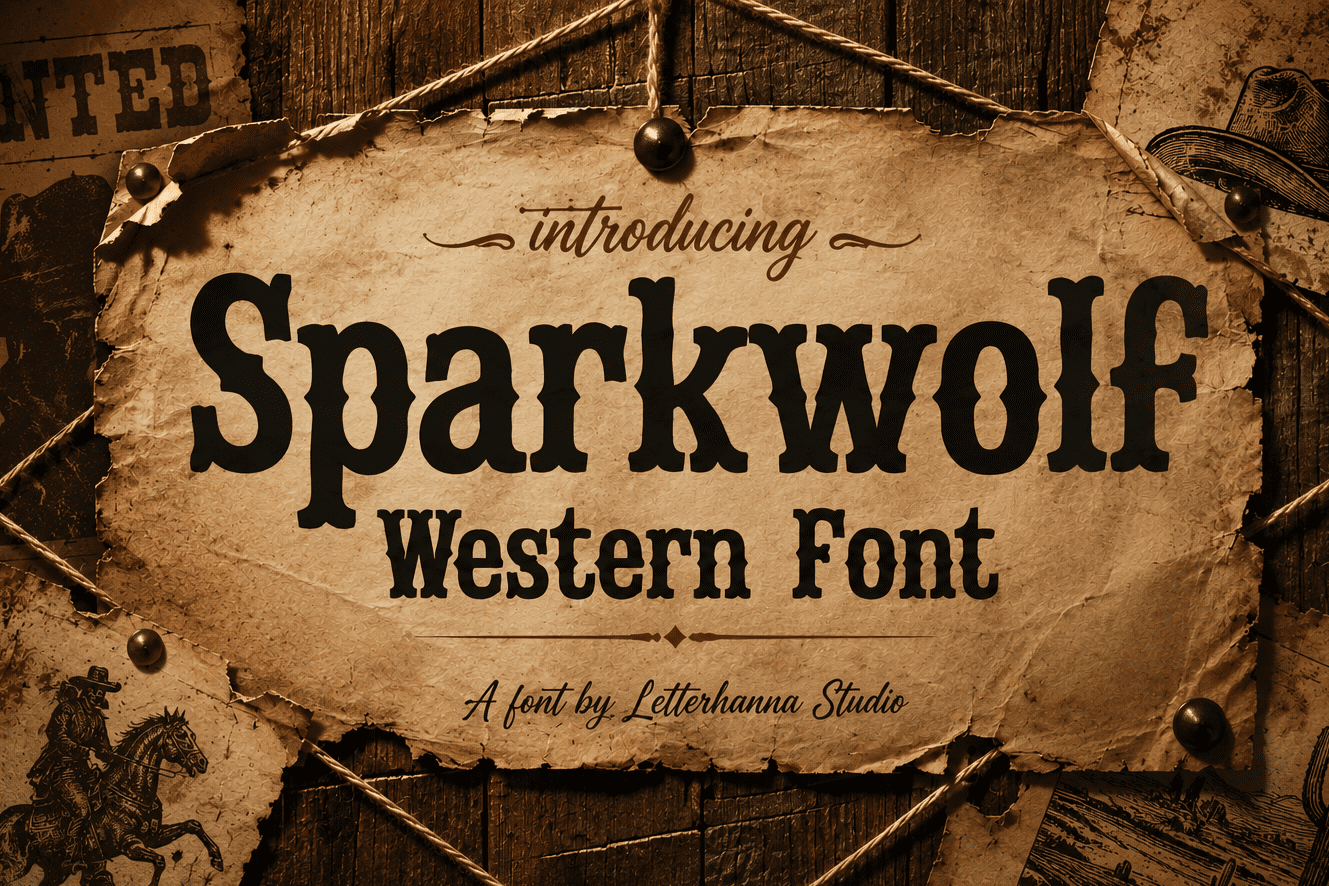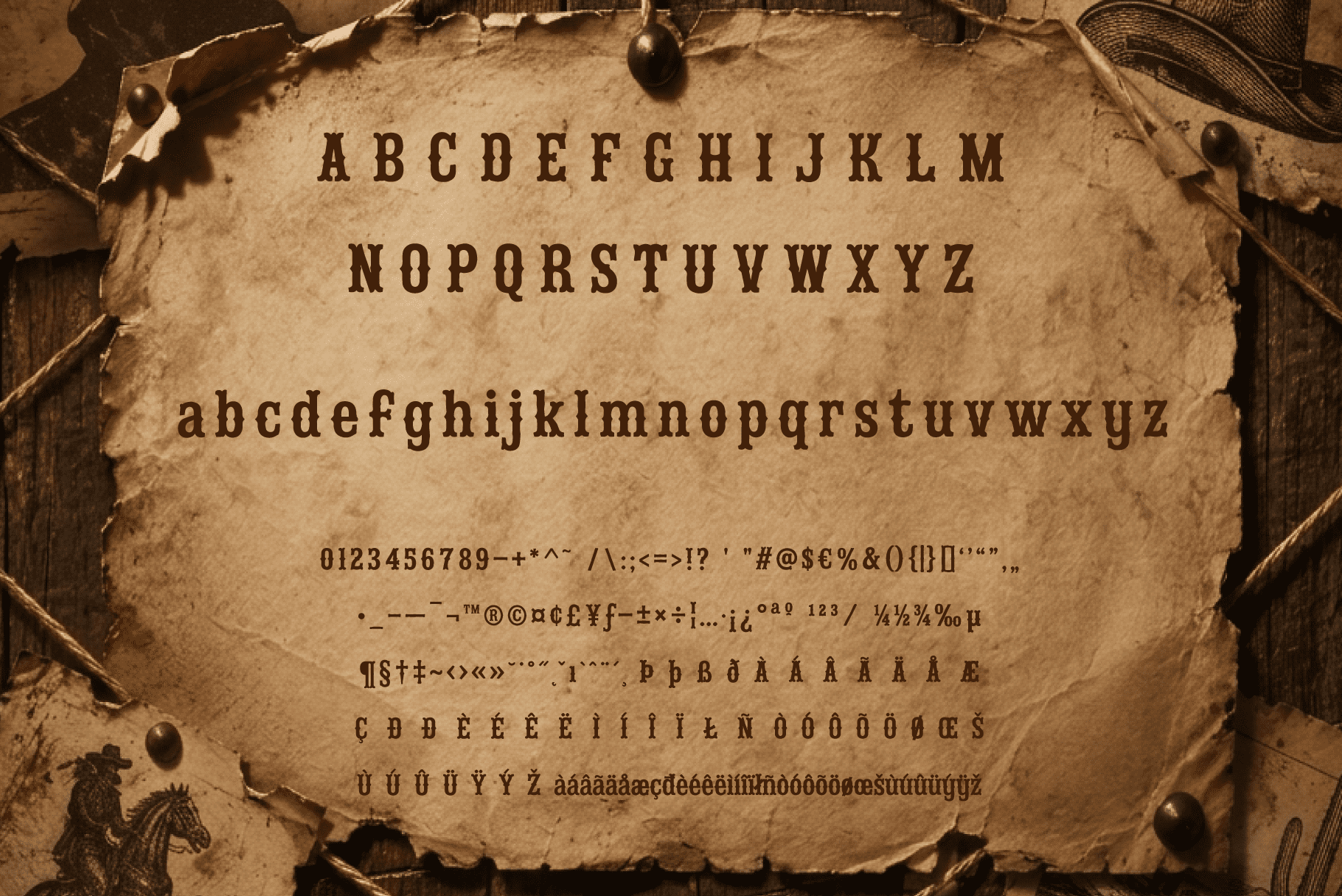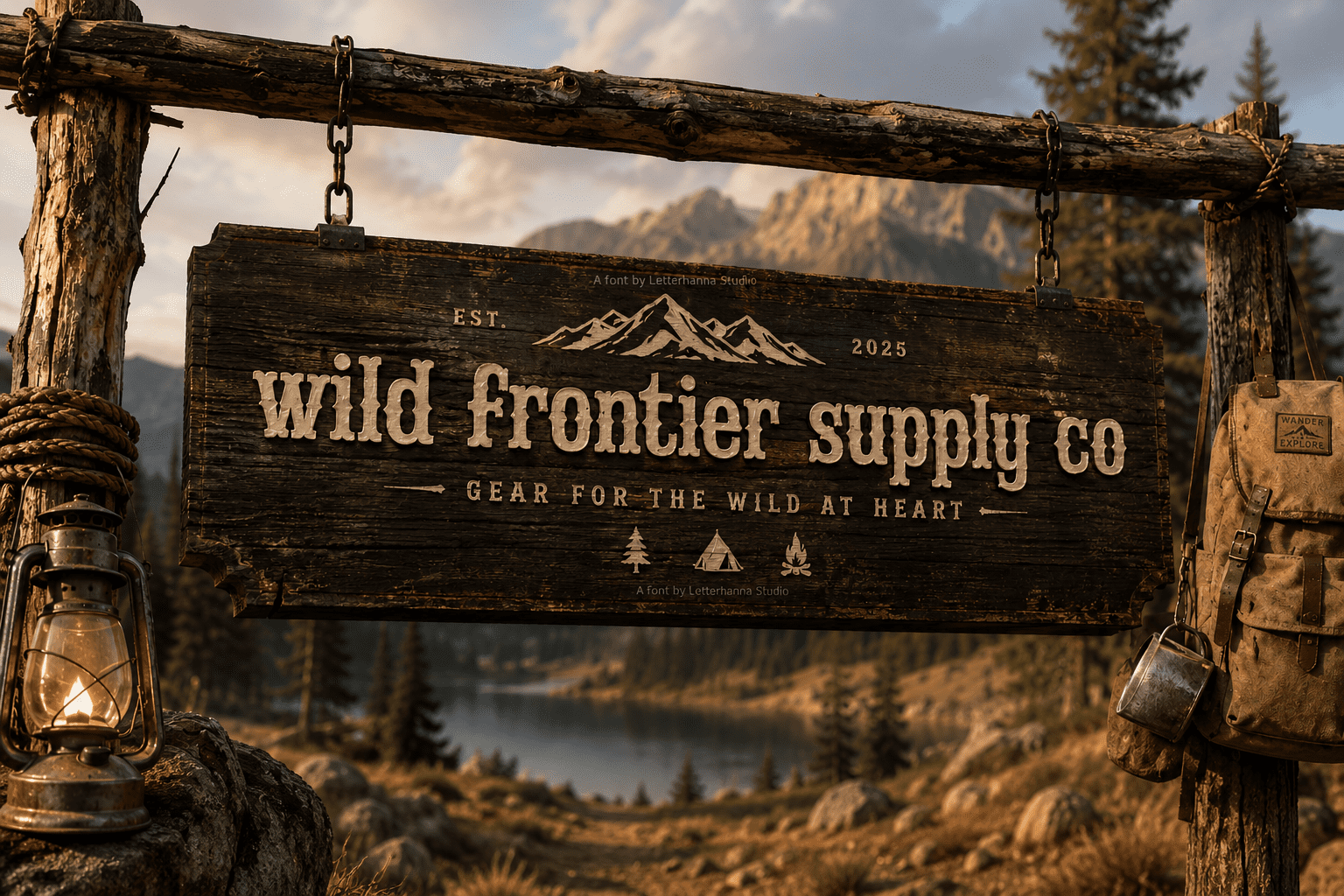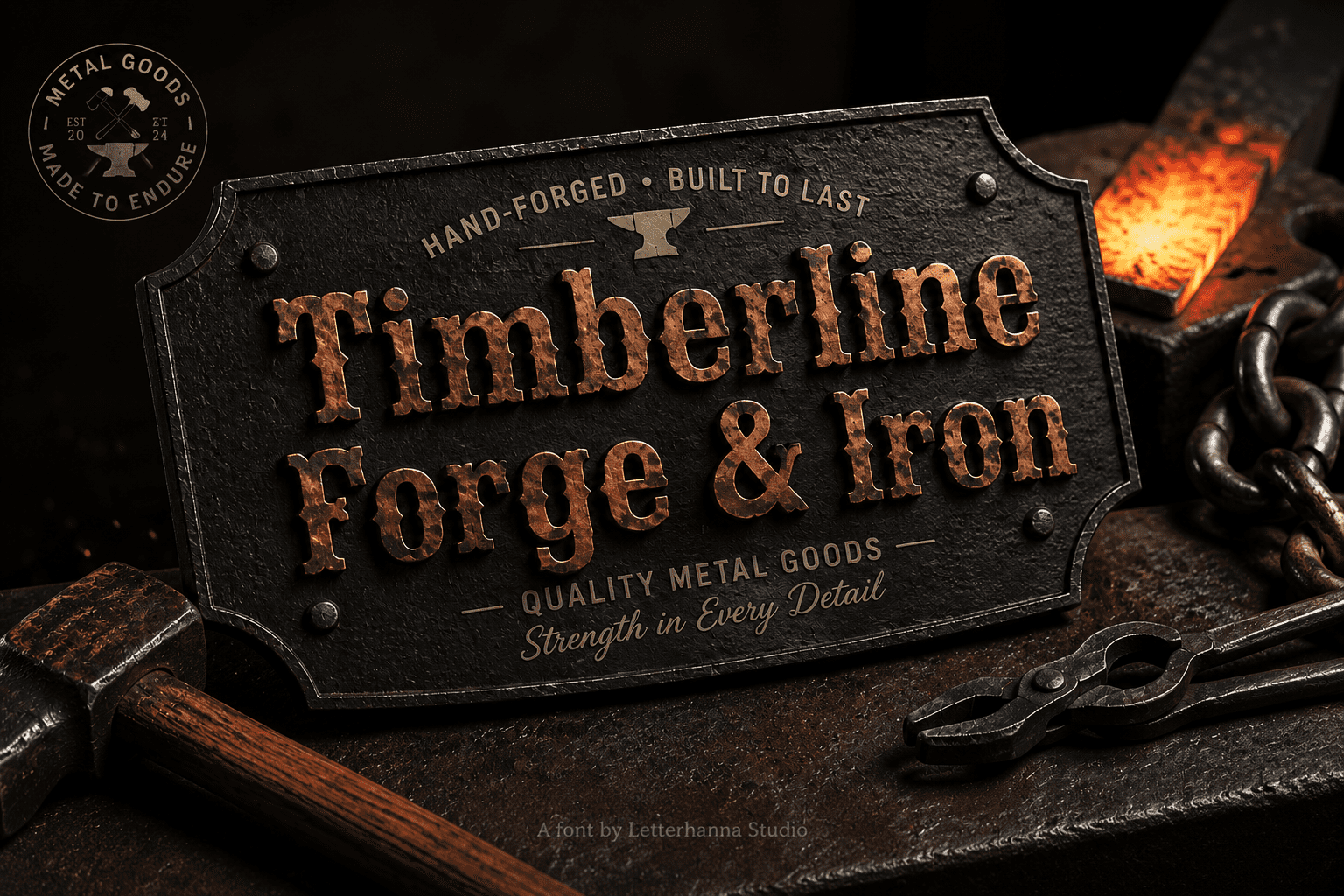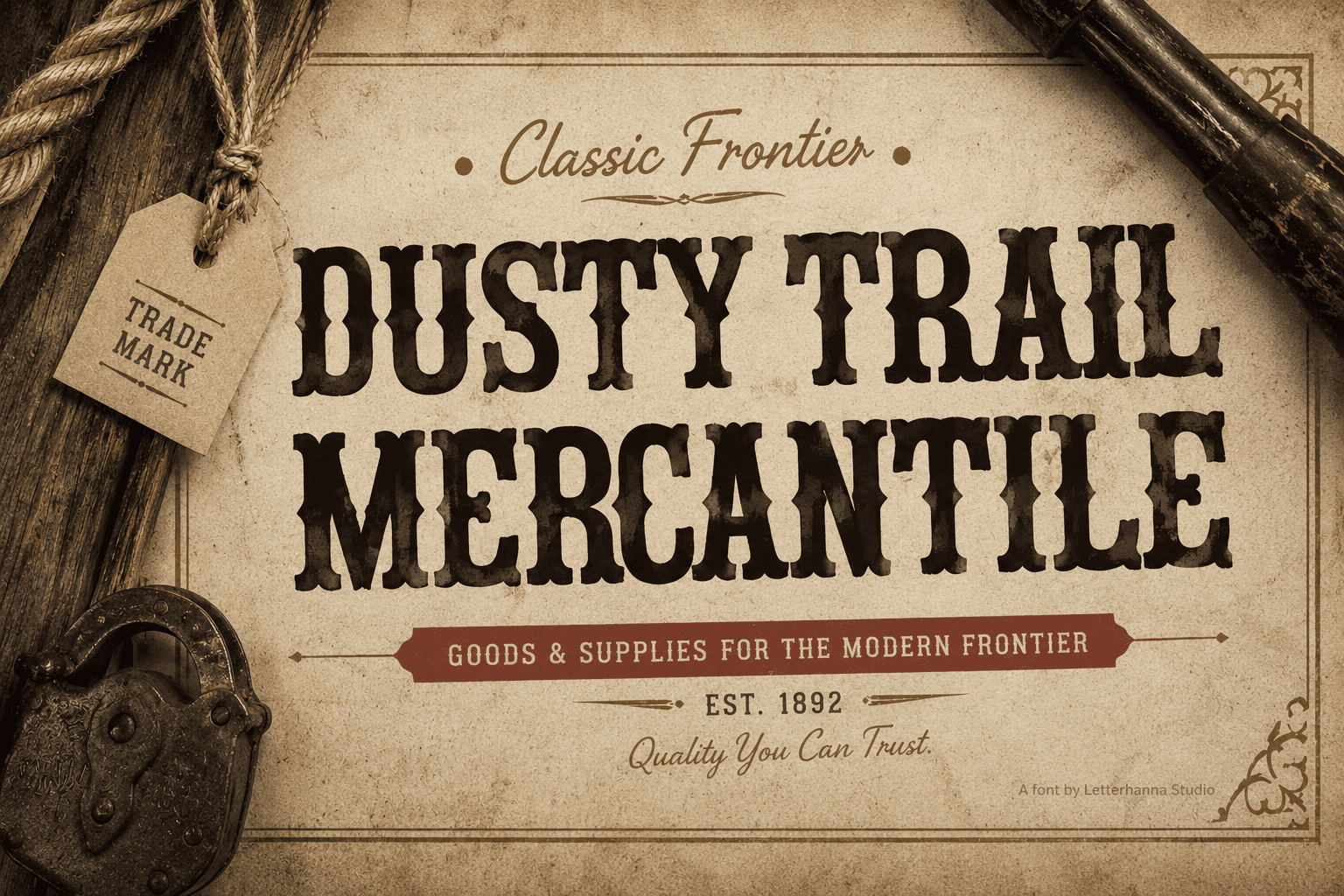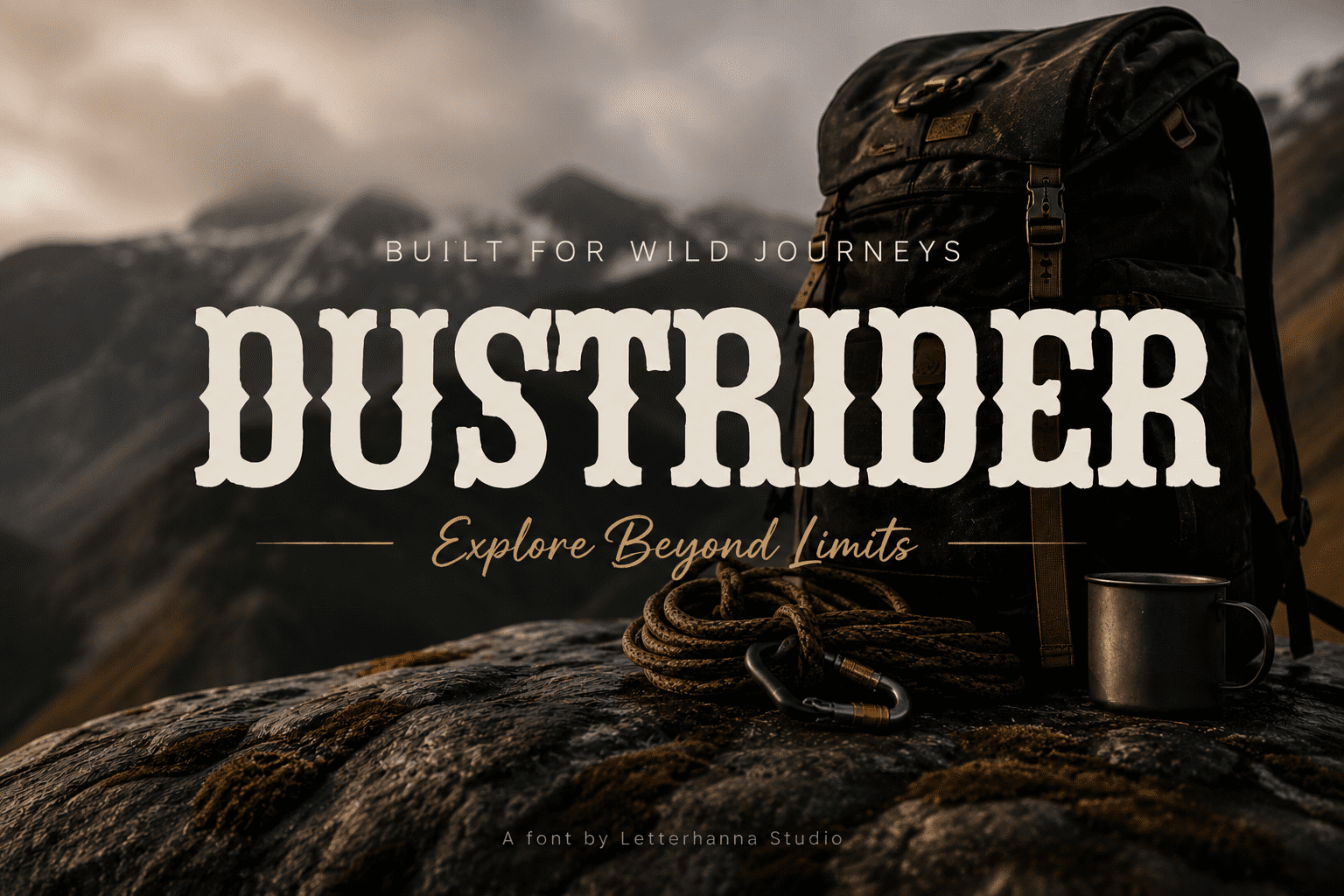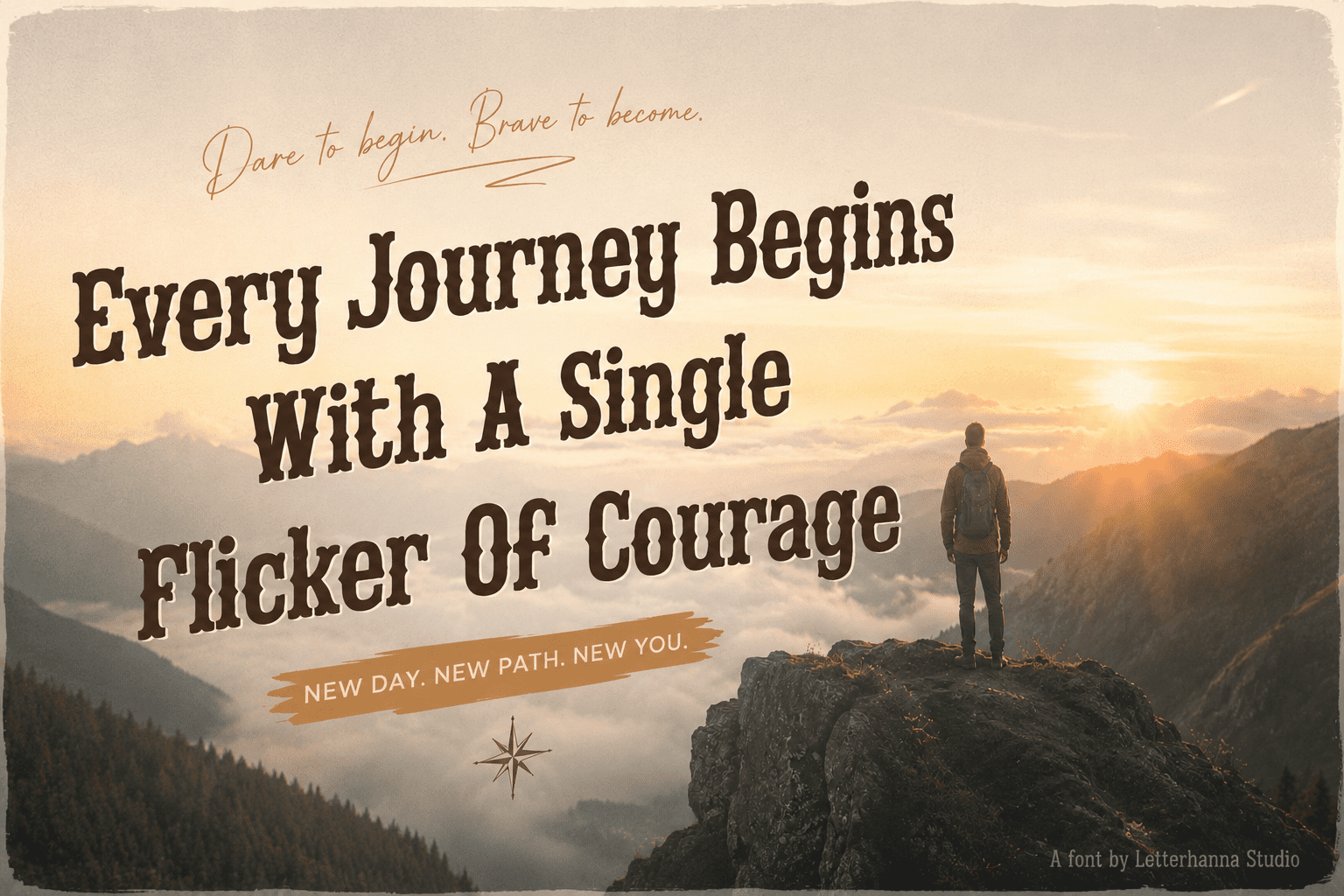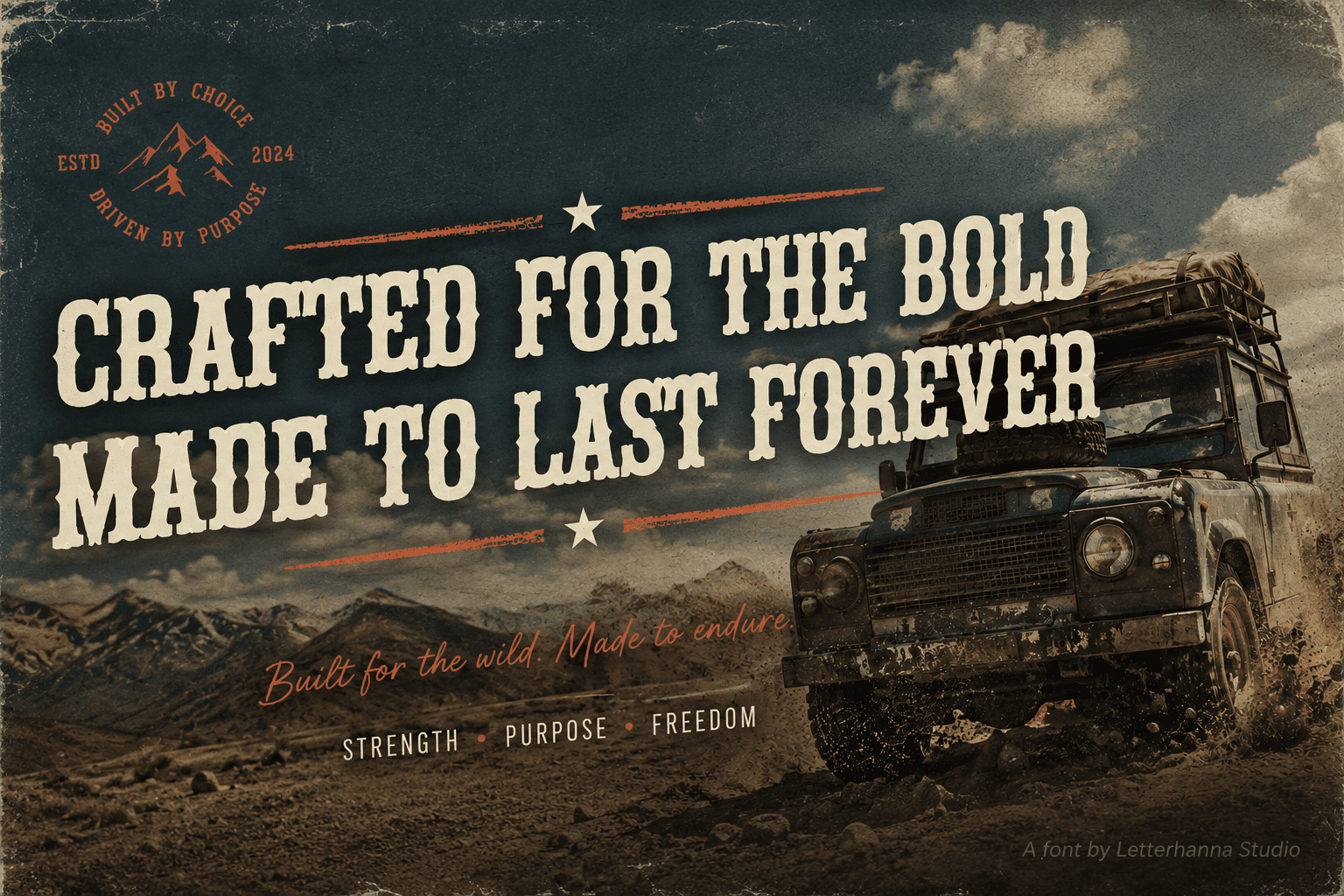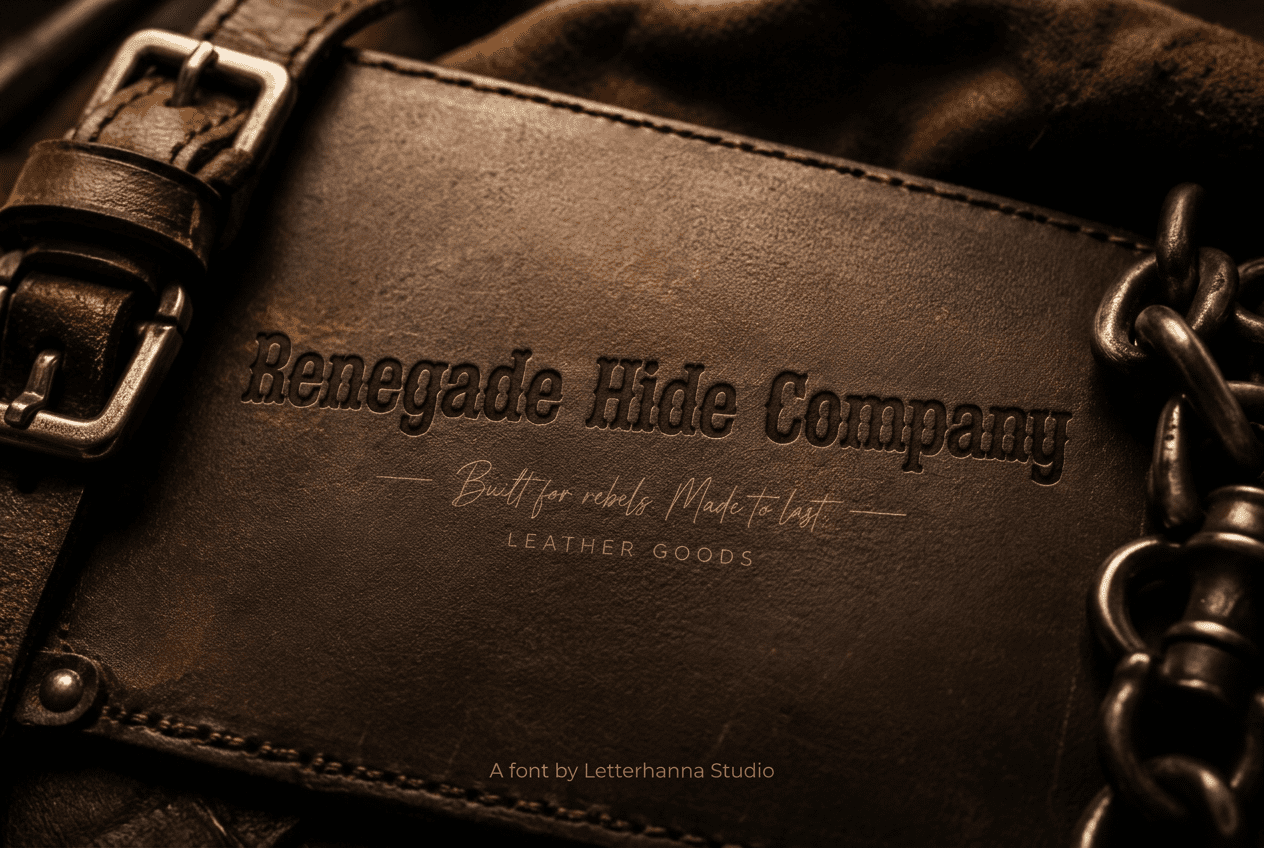
Every great western story starts the same way — a name nailed to a wall, a reward promised, a legend born. That’s the feeling Sparkwolf was built to capture: the raw, bold energy of a wanted poster font straight out of a dusty frontier town.
A Font Forged in Frontier Grit
Sparkwolf is a bold slab serif with thick strokes, wedge-shaped serifs, and just enough imperfection to feel authentic rather than manufactured. It doesn’t look like it came from a modern design studio — it looks like it came from a wooden printing block, hammered into shape by someone who cared more about impact than elegance.
The uppercase letters are sturdy and commanding, built for headlines and bold statements. The lowercase keeps things tight and rhythmic, giving the font a compact, hard-working feel — the kind of type you’d expect on an old newspaper masthead or a hand-painted saloon sign.
The Vibe: Dust, Leather, and Legend
Close your eyes and imagine a leather-bound ledger, a branding iron cooling by the fire, boots crunching over dry earth. That’s the mood Sparkwolf brings to any design. It’s part outlaw western font, part rustic storytelling tool — equally at home on a bounty poster mockup or a modern craft brand that wants to borrow a little frontier soul.
As a vintage typeface, Sparkwolf doesn’t just reference the past — it recreates the texture of it. The slight irregularities in stroke weight and the confident, chunky serifs give every word a sense of history, as if it’s already survived a hundred years of sun and wind.
Perfect Pairings for This Font
This style of cowboy typography works beautifully across a wide range of projects: rodeo event branding, whiskey and spirits labels, leather goods packaging, western-themed apparel, wanted-poster novelty designs, ranch and homestead logos, and rustic wedding invitations that want a touch of untamed charm.
Whether you’re designing for a small Etsy shop, a craft brewery, or a western-themed film poster, Sparkwolf delivers instant mood and narrative depth without requiring extra decoration.
Built for Real-World Use
Beyond its strong visual identity, Sparkwolf is designed with practicality in mind. The bold strokes hold up at small sizes, the letterforms remain legible even when stylized, and the overall structure translates well across print, packaging, and digital formats alike.
Your Story Starts Here